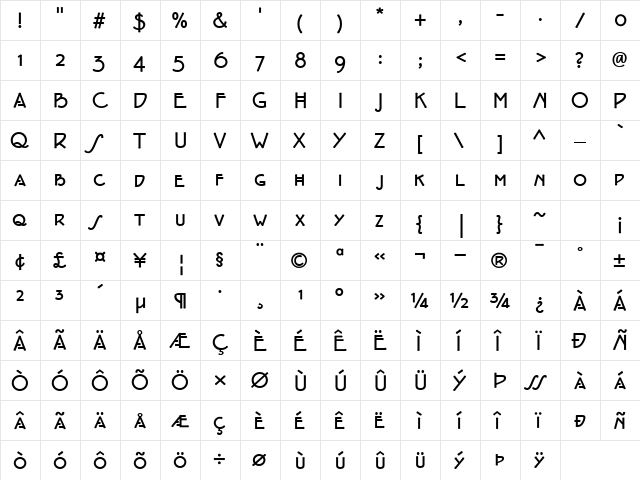
EaglefeatherSmallCaps Bold
Design Context for EaglefeatherSmallCaps Typeface
EaglefeatherSmallCaps offers clean, dependable letterforms without strong stylistic allegiance, making it a practical choice for designers who need flexibility. The heavy weight commands attention and anchors typographic hierarchies.
Pro Tip: Use EaglefeatherSmallCaps in both headline and body roles to test its range before committing to a single application.